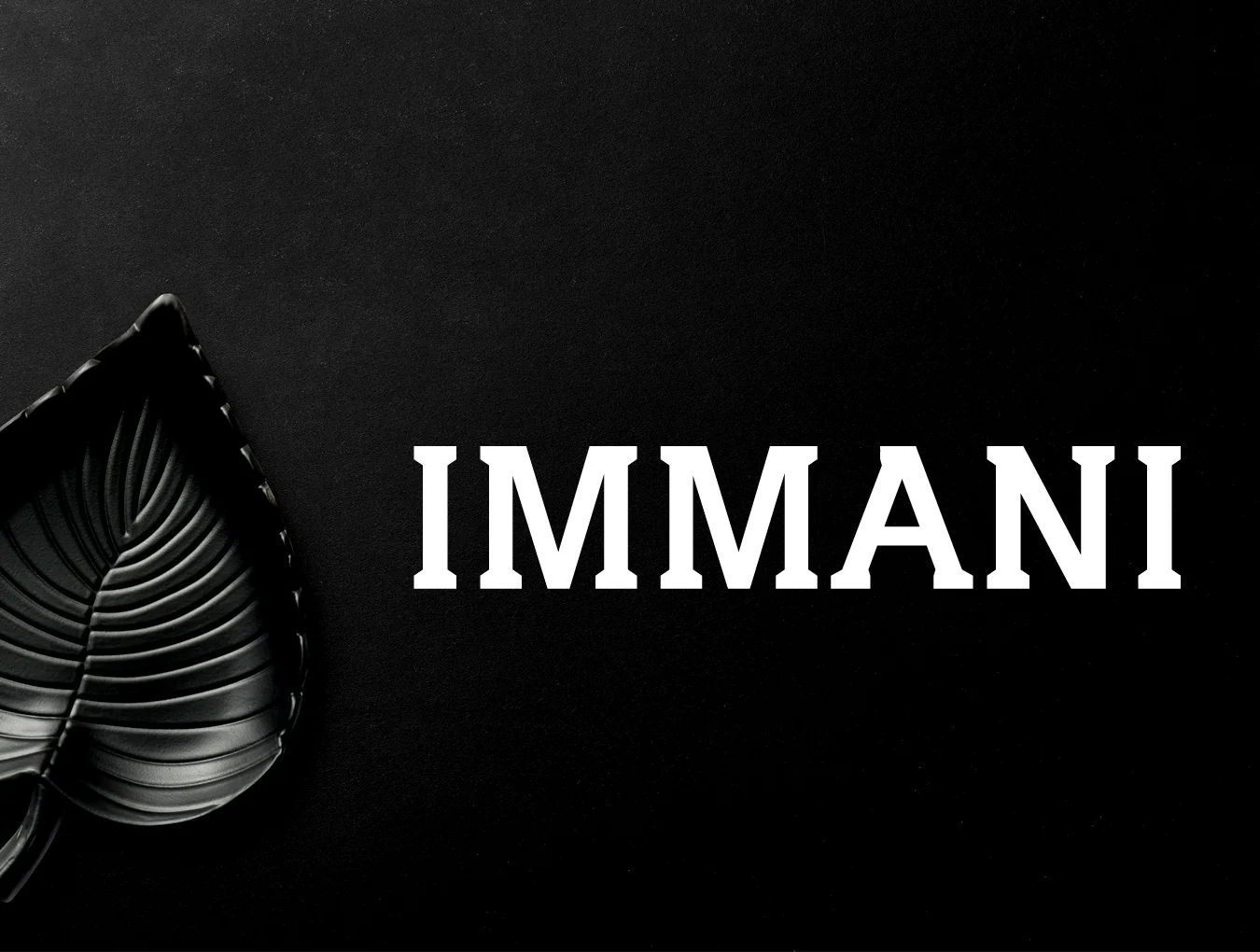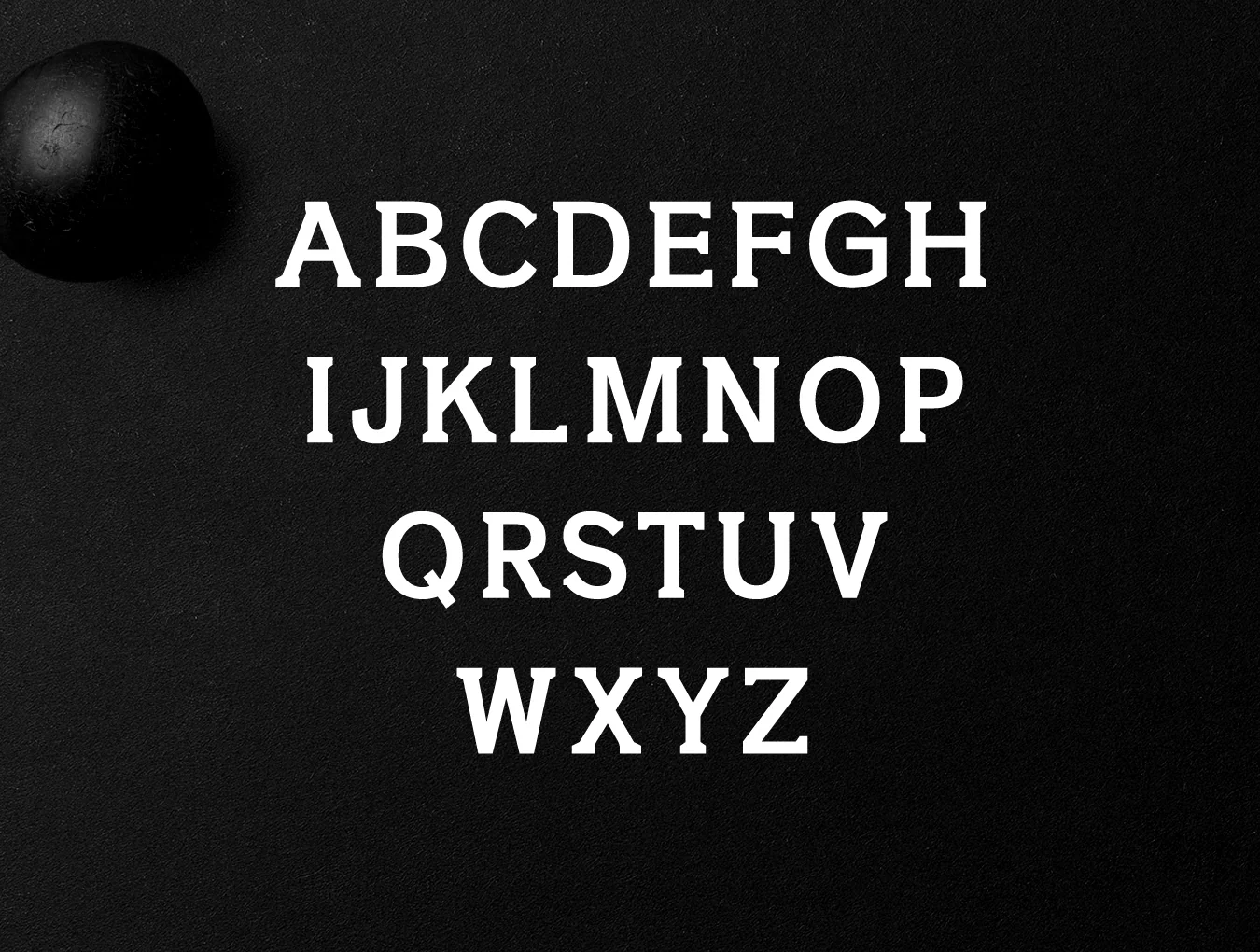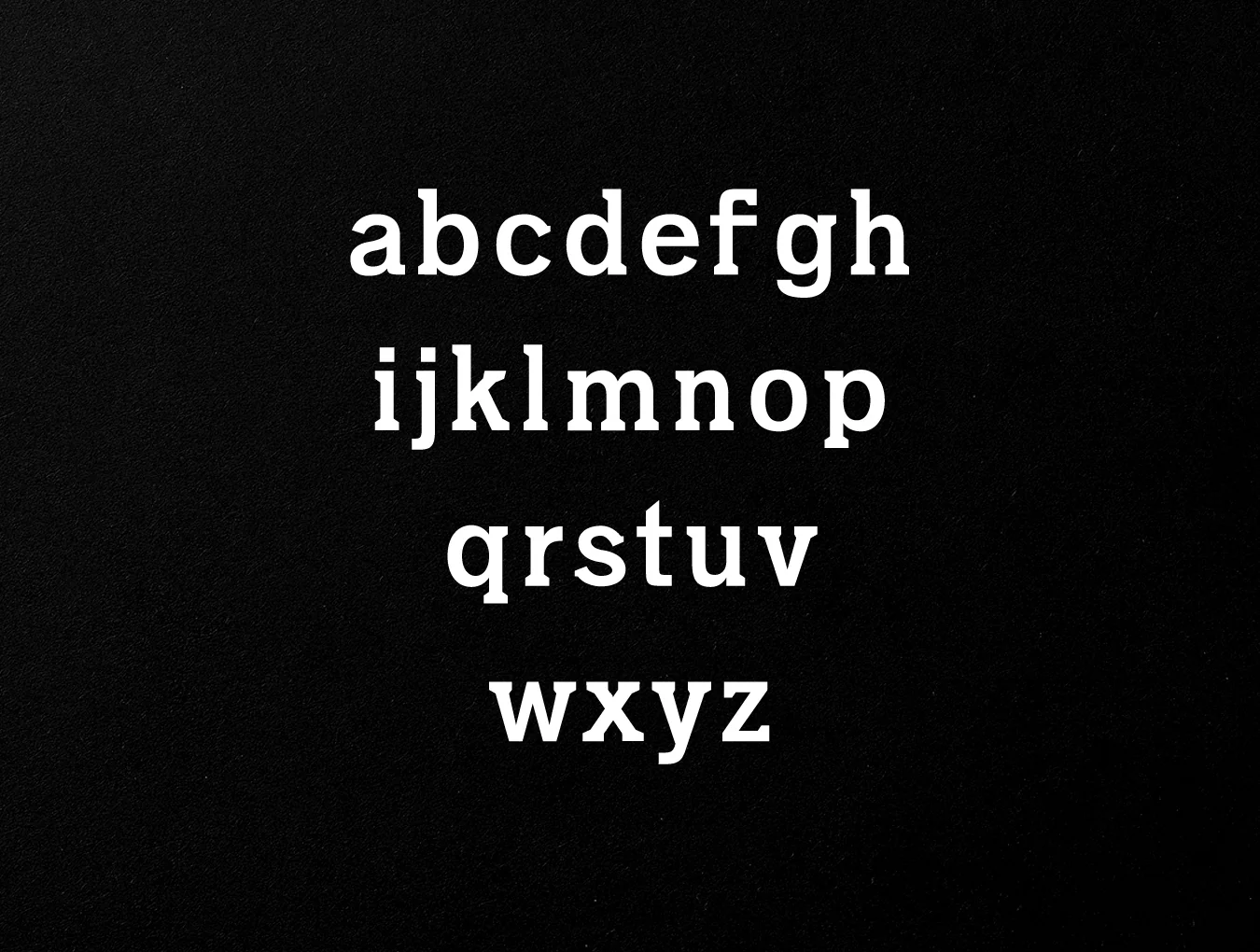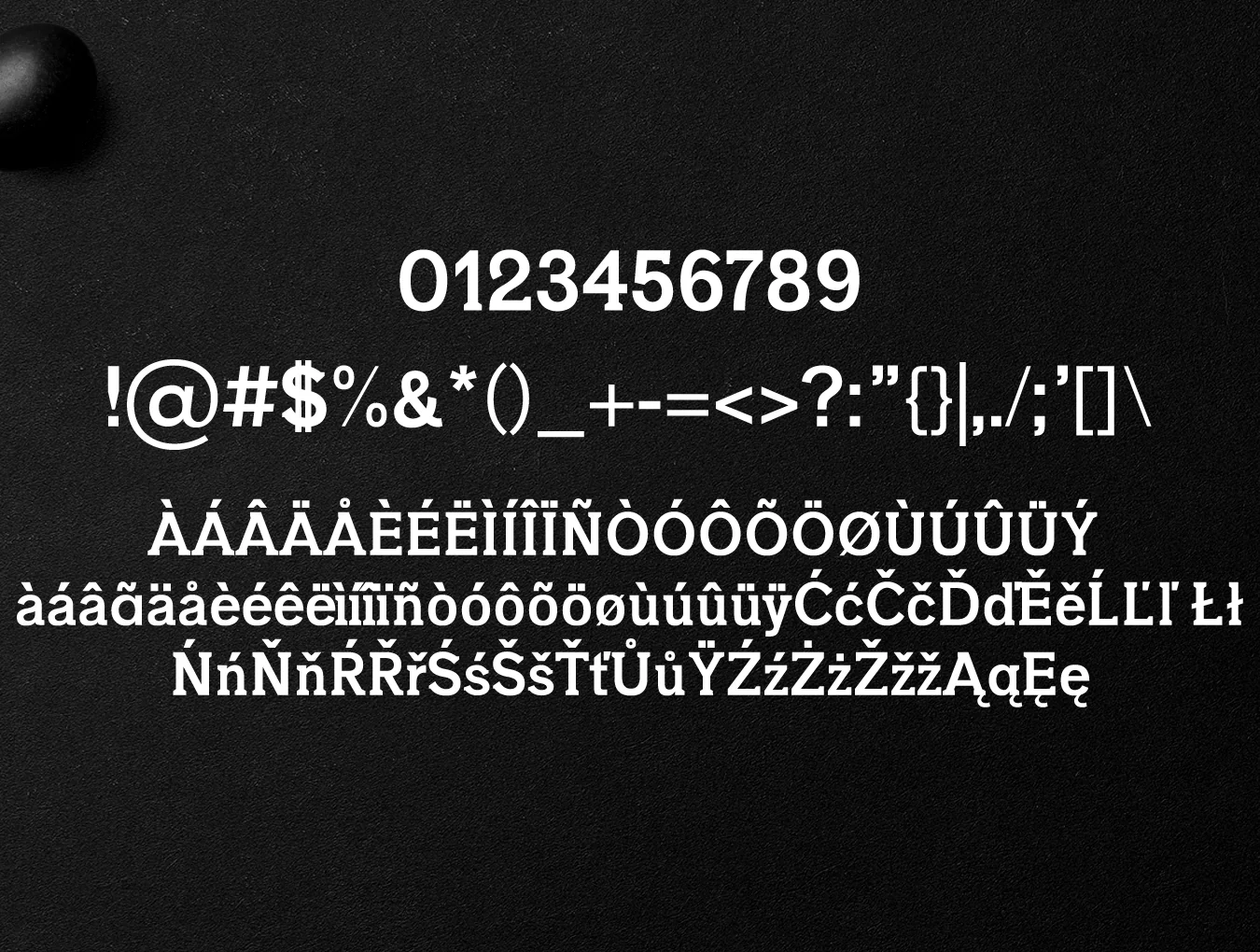
IMMANI
Modern serif family bundle with 2 fonts.
Serif font style
Standard weight
Lighter font weights
Serif font style
Standard weight
Lighter font weights
Immani Serif 2 Font Family Pack offers a distinctive contemporary serif style, ideal for elegant logos, headlines, website designs, and branding. Use it in uppercase with generous spacing for a refined effect, or mix capitals and lowercase for a timeless, polished appearance.